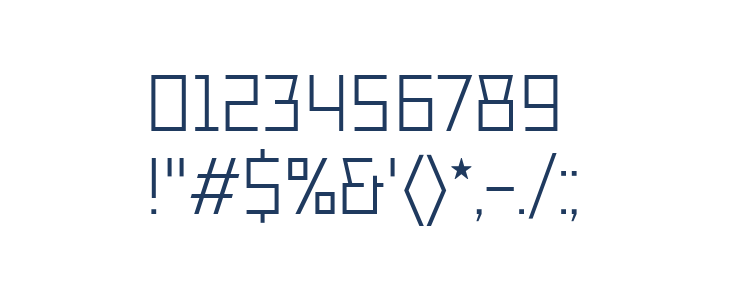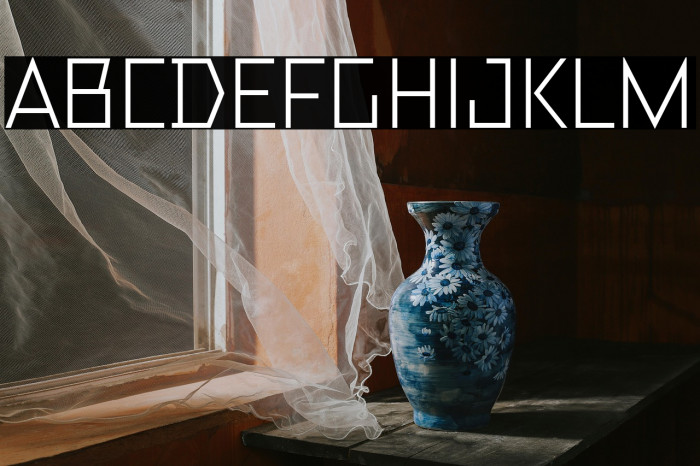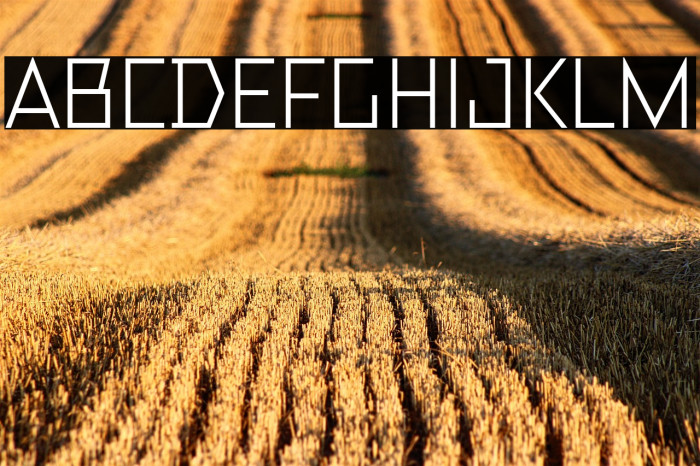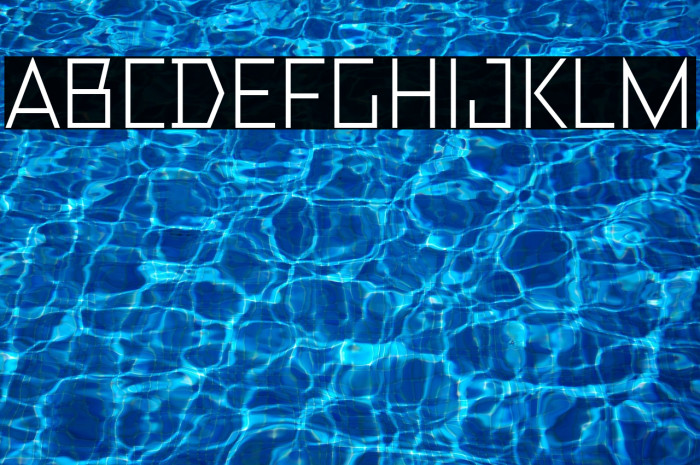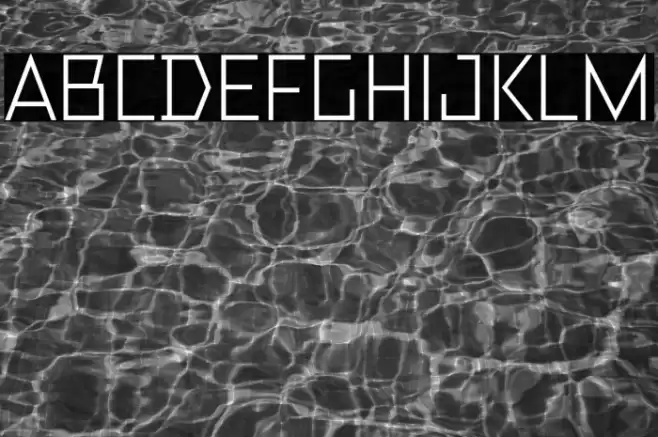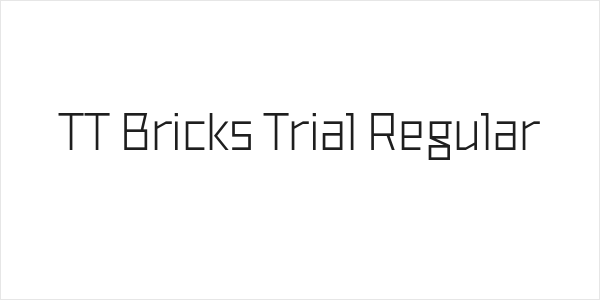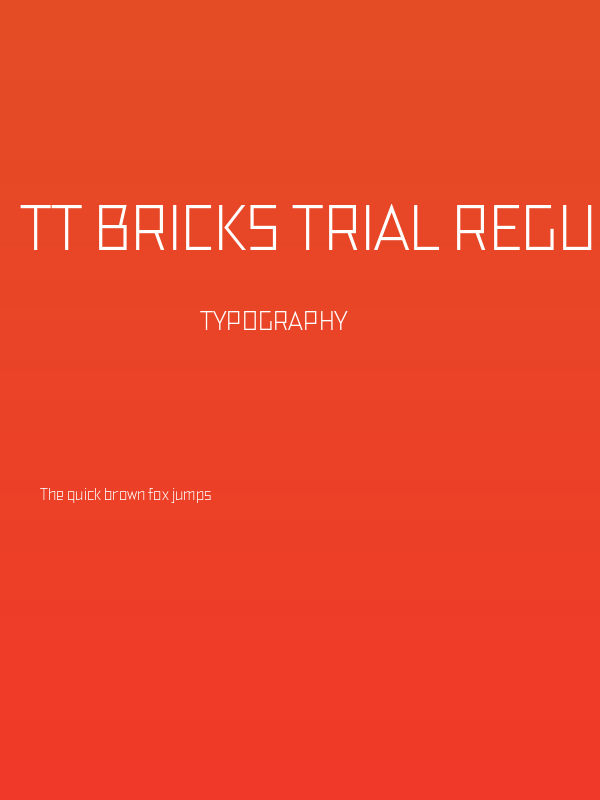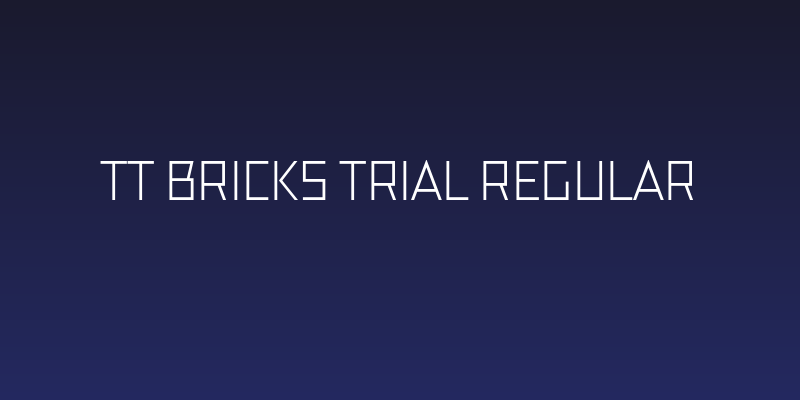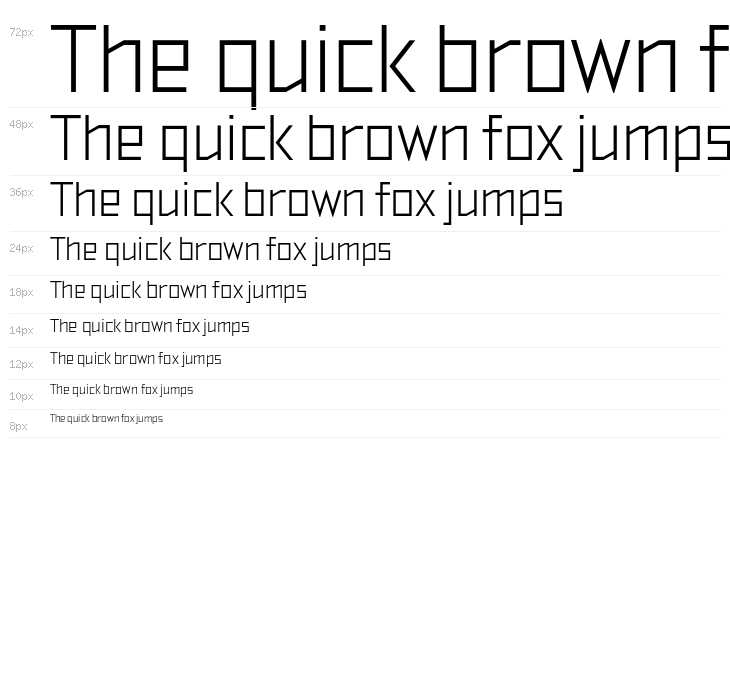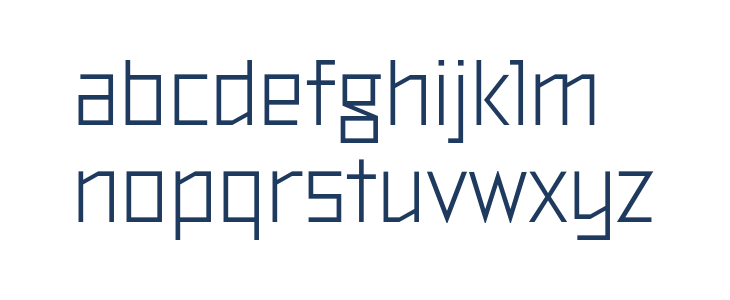
TT Bricks Trial Regular Font
TT Bricks Trial Regular Description
This font exhibits a geometric and modern design, characterized by its clean lines and angular shapes. The uppercase letters are bold and structured, with a distinct architectural feel. The lowercase letters maintain the geometric theme, offering a consistent and cohesive look. Numbers and special characters are designed with the same precision, making them easily readable and visually appealing. The overall style is contemporary, making it suitable for a variety of digital and print applications.
| Use Case | Headlines, Logos, Digital interfaces |
| Proposed Projects | Ideal for tech branding, modern websites, digital interfaces, and architectural publications. |